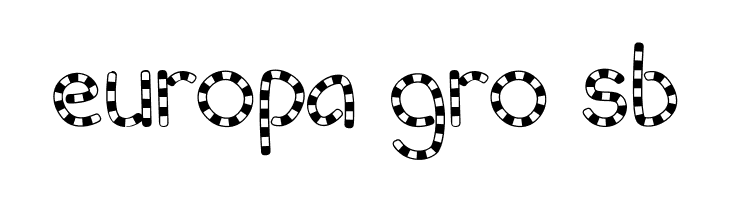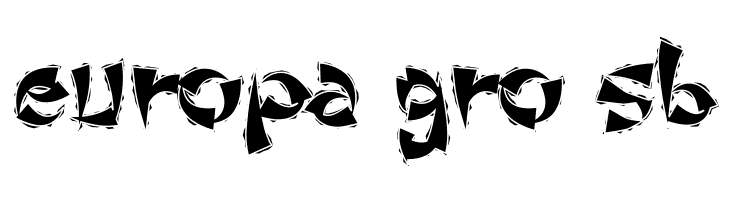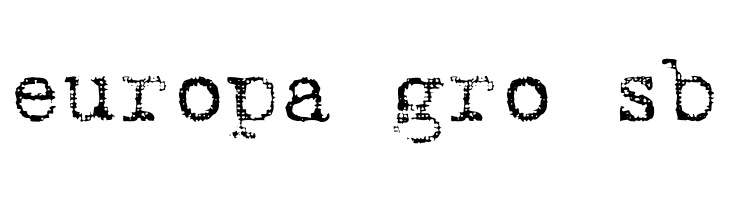
( Fonts by Blue Vinyl - Jess Latham - www.bvfonts.com )
A playful, striped decorative font with a candy cane-like appearance.
( Fonts by Daniel Gauthier )
A bold, jagged font with a woodcut-inspired, energetic style.
A distressed serif font with a grunge, textured appearance.